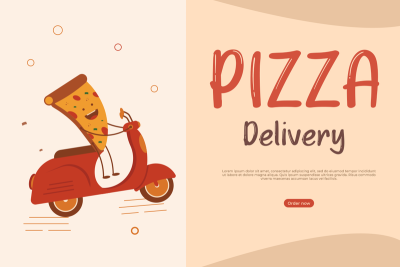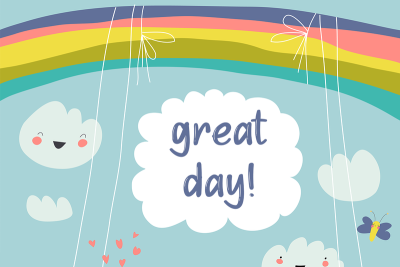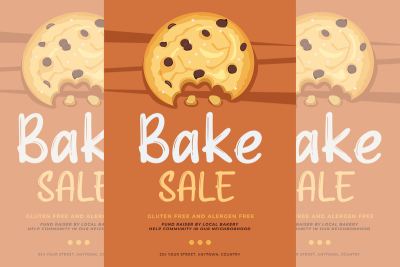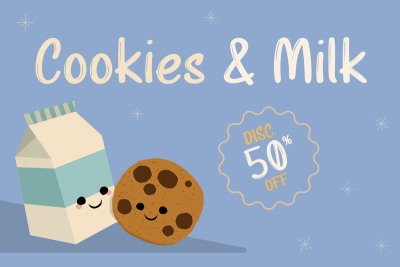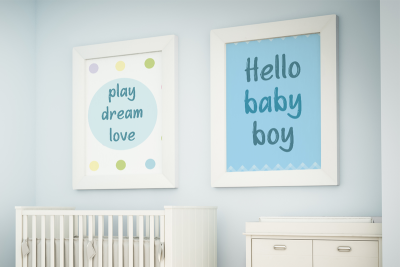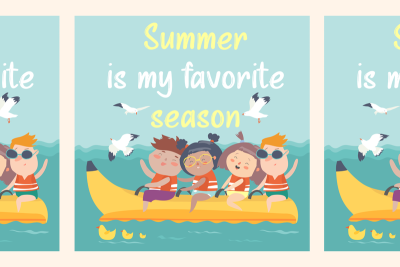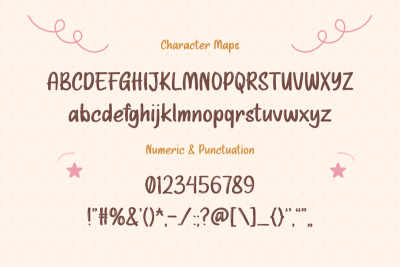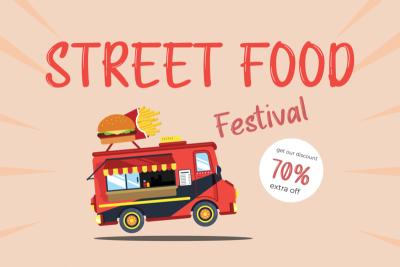
Cute Font Raisin Topping is a delightful typeface that combines the sweetness of a dessert topping with playful, hand-drawn strokes. Its chunky, rounded letters and slightly irregular lines add a cozy, friendly vibe to any design, making it ideal for kid-centered projects or food themes. The name reflects its essence โ each character looks carefully crafted, like adding raisins or sprinkles to a dessert. With its casual, handwritten style, Cute Font Raisin Topping gives text a natural, unpolished feel that is both charming and inviting.
The organic, smooth lines of this font is make it versatile, especially for projects needing warmth and friendliness. Each letter has a slight bounce, creating a dynamic look thatโs perfect for titles, headings, and short text. This approachable style brings personality to any design, drawing the viewer in with a touch of playfulness. Simple yet effective, the font ensures readability while adding unmistakable charm. Its food-inspired appeal makes it a great choice for projects needing a sweet, comforting look.
Cute Font Raisin Topping Ideal for
Cute Font Raisin Topping is perfect for designers, educators, and creators wanting a friendly, whimsical touch. It works well for brands targeting children or families, like bakeries, dessert shops, and toy companies. The cozy style makes it ideal for product packaging, especially for treats marketed to younger audiences. This font is can elevate menus, signage, and labels, giving them a fresh, inviting look that captures attention.
Educators and childrenโs content creators will also find Cute Font Raisin Topping valuable. Its playful, easy-to-read style suits educational materials, worksheets, and activity books for young learners. The hand-drawn look makes learning materials feel less formal, encouraging engagement. Itโs also perfect for classroom posters or decor that adds warmth and friendliness.
Additionally, digital creators and influencers in food or lifestyle niches can use this font is to add charm to their content. Itโs ideal for creating engaging graphics, posts, and stories that stand out on social media. The fontโs playful look enhances captions, food photography labels, or banners, making them eye-catching and memorable. This font is also great for DIY crafts, recipe cards, or blog headers that need a personal, cozy feel.
For anyone seeking to add sweetness and charm, Cute Font Raisin Topping is a perfect choice. Itโs more than a font โ itโs a warm invitation to explore, enjoy, and engage. Whether in branding, educational materials, or digital content, Raisin Topping adds a friendly touch that makes your message feel welcoming.